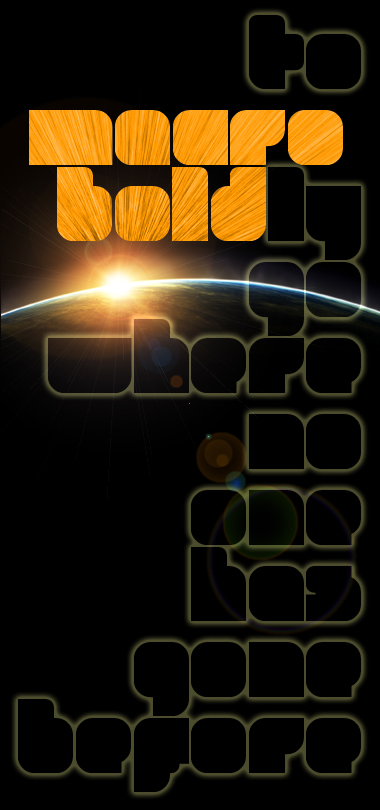
• A big, fat, funky font to use only at huge sizes!
I had the original concept for this one a while ago, but was not satisfied with the dots on the i and j, so I tweaked the filters a bit to set them at the same height as the ascends.
I recommend using it at really big sizes so it won't lose detail, since letter spacing is so narrow to balance the dot distance.
Only Spanish Glyphs LC so far, plus some basic punctuation.
21.07.09 redesigned all numbers plus e,f,s,z,$ and added fi, fl and & (sounds redundant, huh?^_^)
23.07.09 expanded it some more...
Nice one.
This is one of the more useable 'blocky' fontstructions I've seen... in my opinion anyway. I could see this being used heavily in music promotion - posters, record sleeves etc.
Good work.
This is cool. Love the sample. The sample makes me think that it would be fun/funny if this fontstruction was called Macro Boldly, like a detective from the 1950s. :-)
I made some improvements to it:
Some radial blur inside the title & a lens flare to add a 2001 touch.
I'm glad you like it.
Maybe Mr Boldy joined the space race before sputnik?